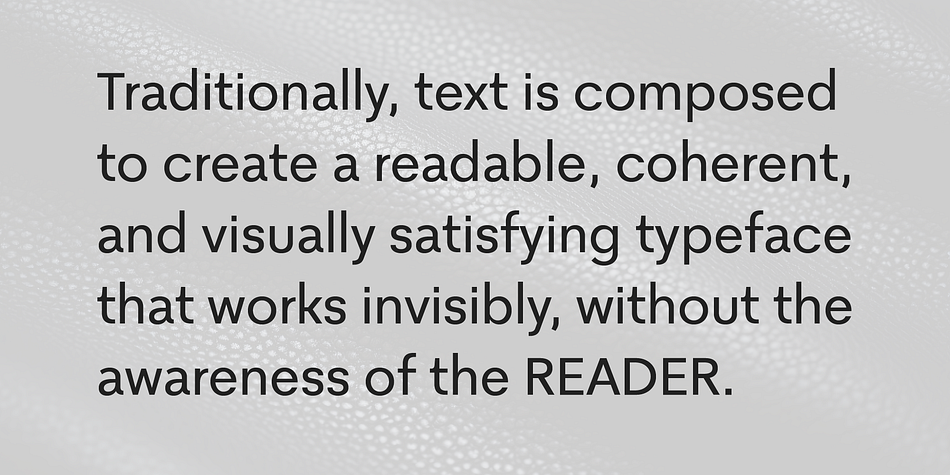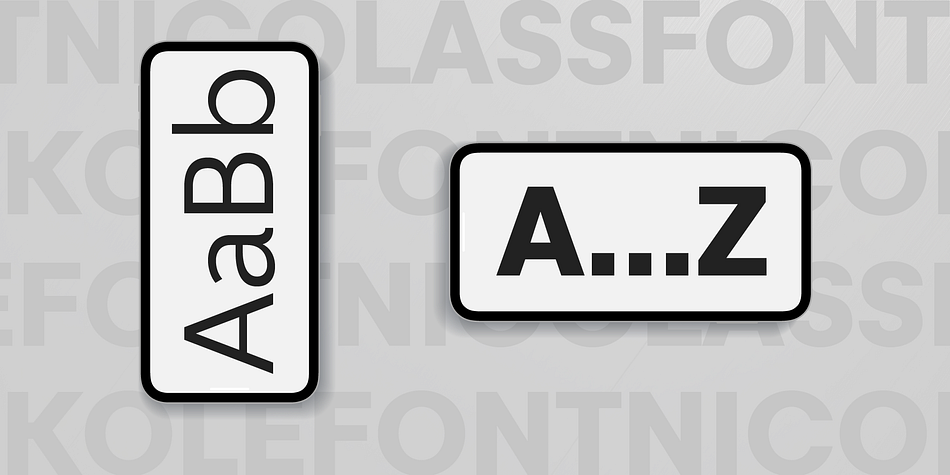
Kole
Designed by Nikolay Savchuk, Kole is a sans serif font family. This typeface has eighteen styles and was published by NicolassFonts.
The complete family contains 18 weights. Kole family is ideally suited for signage, packaging, brand identity, software, editorial design, as well as web and screen design. Perfectly for headlines and logotypes.